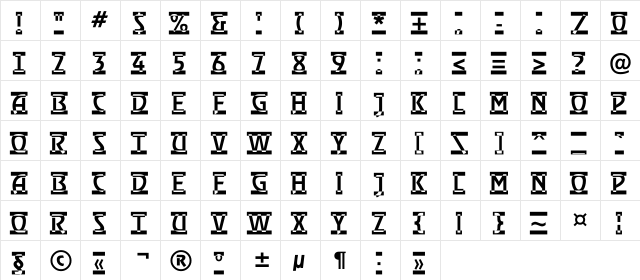
a_RewinderTitulRwD Regular Font Preview
a_RewinderTitulRwD Regular
a_RewinderTitulRwD Regular Font Details
Design Context for a_RewinderTitulRwD Typeface
a_RewinderTitulRwD is a composed and adaptable typeface that performs quietly and consistently across a wide range of design contexts.